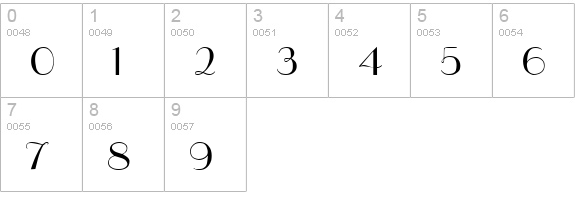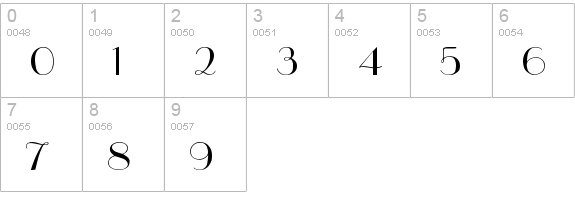
UppEa Regular is the standard, neutral variant in the UppEa typeface family \xE2\x80\x94 well suited to general body text, paragraphs, and standard typographic work.
UppEa Regular font is a modern and stylish typeface that exudes elegance and simplicity. Its clean lines and balanced proportions make it a versatile choice for a wide range of design projects, from logos and branding to headlines and body text. This font features a unique blend of sharp edges and smooth curves, giving it a distinct and eye-catching appearance. With its legible and well-defined characters, UppEa Regular ensures optimal readability across various mediums and sizes. Designed with creativity and usability in mind, UppEa Regular offers a wide range of weights and styles to suit any design need. Whether you're looking for a bold and impactful headline or a refined and sophisticated body text, this font has got you covered. One of the best things about UppEa Regular font is that it is freely available to download at FontsMarket.com. This means that you can easily access and use this font in your projects without any restrictions. So why wait? Enhance your designs with the modern and elegant UppEa Regular font today!